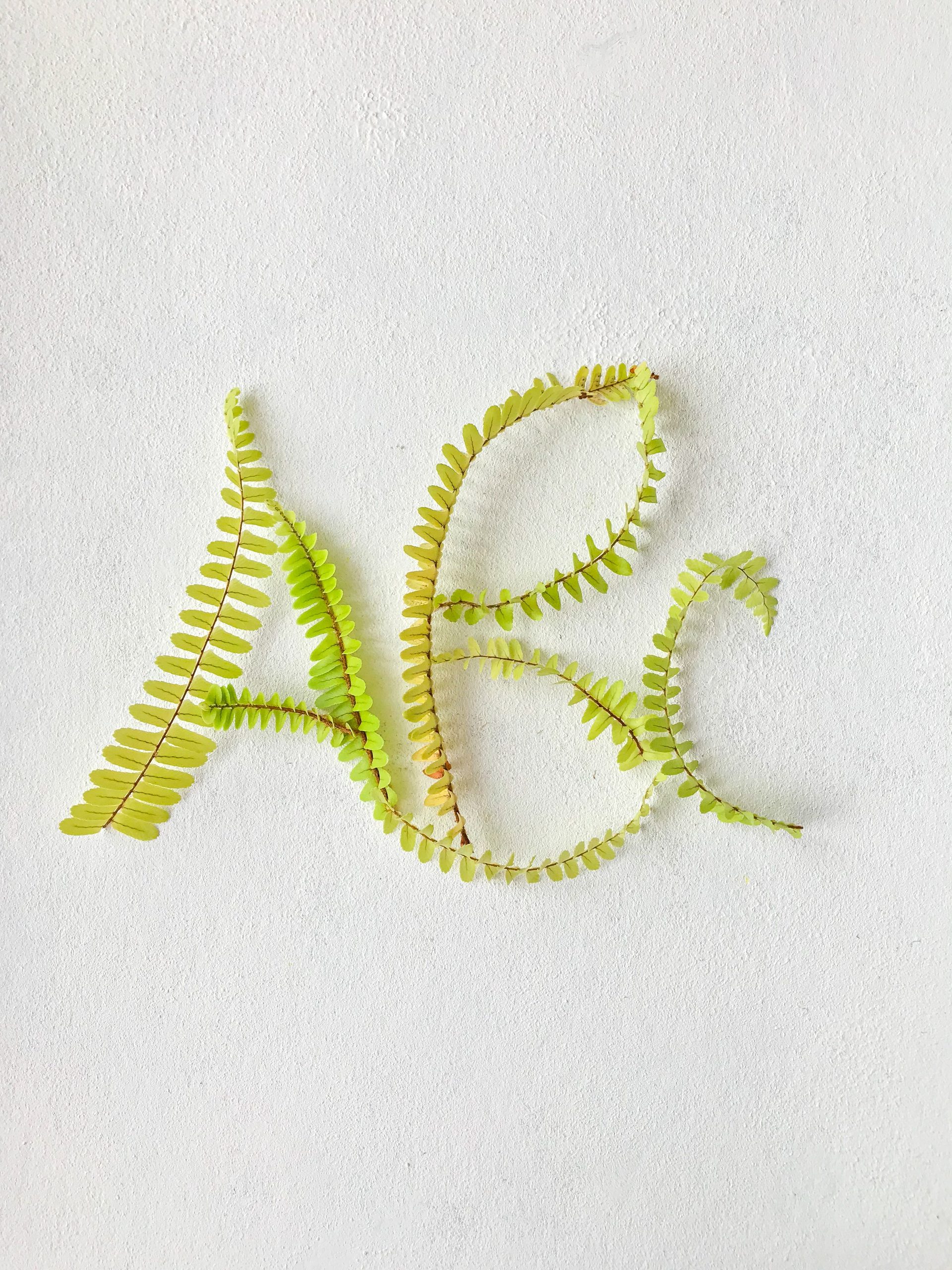
Graphic designers are constantly seeking ways to infuse a natural touch into their projects. 2026 is emerging as a pivotal year for botanical font trends, characterized by organic colors and captivating natural forms. Artiveko, the creative studio led by Muhammad Iwan Alwan, has launched its latest font collection that seamlessly blends botanical aesthetics with high-performance utility.
When considering the psychology of typography, botanical elements evoke a sense of tranquility and trust. This is why many high-end brands are shifting towards premium organic fonts to establish a connection with environmentally conscious consumers. For instance, the use of delicate leaf-like serifs can transform a standard logo into a storyteller of sustainable practices.
Botanical fonts are typefaces inspired by plant elements—ranging from leaves and flowers to intricate fiber patterns. They are perfectly suited for natural product branding, organic food packaging, or any design aiming to highlight an eco-friendly impression. According to a recent study by industry experts like Monotype, the demand for “humanist-organic” hybrids is projected to grow by 40% in the editorial design sector over the next two years.
At Artiveko, we don’t just create fonts; we design experiences. Our process involves studying actual botanical illustrations to capture the authentic flow of nature. This results in fonts that don’t just look “green” but feel alive on the screen and in print.
As we navigate through the design landscape of 2026, the Artiveko collection stands out for several technical and aesthetic reasons:
As we look beyond 2026, the intersection of AI-driven design and organic forms will become even more prominent. However, the human touch of a hand-crafted botanical font will always remain the gold standard for authenticity. By choosing Artiveko, you are investing in a legacy of craft that honors the natural world.